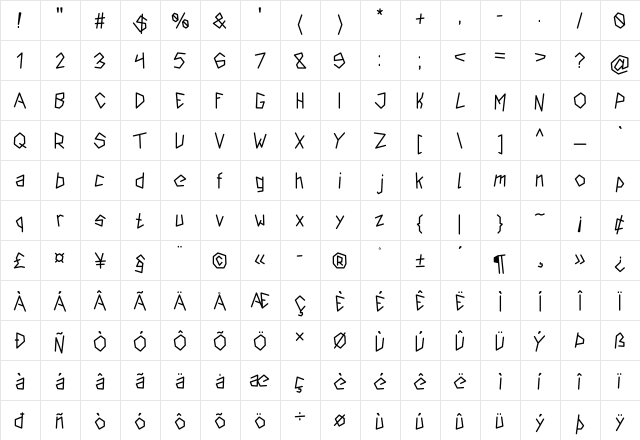
Insurgence Thin Regular Font Preview
Insurgence Thin Regular
Insurgence Thin Regular Font Details
Design Context for Insurgence Thin Typeface
Insurgence Thin is a composed and adaptable typeface that performs quietly and consistently across a wide range of design contexts. The delicate stroke weight brings airiness and refinement to layouts.